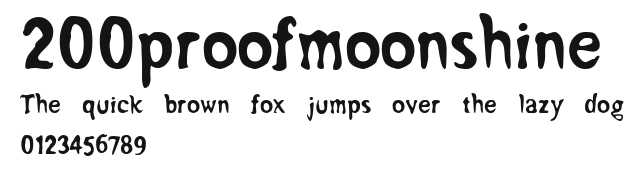
• Font Name: 200proofmoonshine
• Font Style: remix
• Font ID: Altsys Fontographer 4.0.2 200proofmoonshine remix
• Full Font Name: 200proofmoonshine remix
• Version: Altsys Fontographer 4.0.2 11/16/96
• PostScript Name: 200proofmoonshineremix
• Character Count: 111
• Copyright: 251 or don't copy at all . cinahaus . moonshine . 200 proof remix . based on moonshine by chank diesel . remixed by michael cina
About 200proofmoonshine.ttf
200proofmoonshine.ttf is a modern, elegant sans-serif font designed for ultimate readability and visual harmony. Perfect for branding, headlines, web design, and print materials.